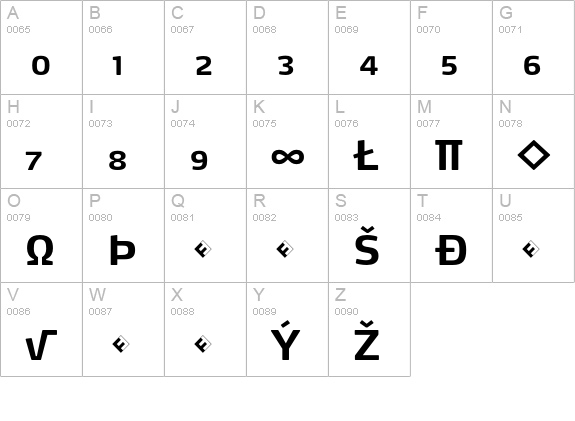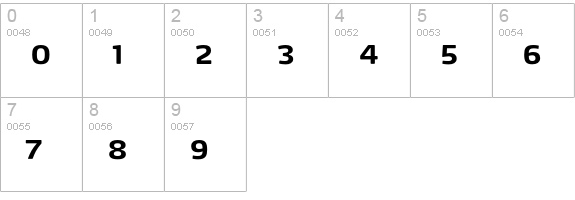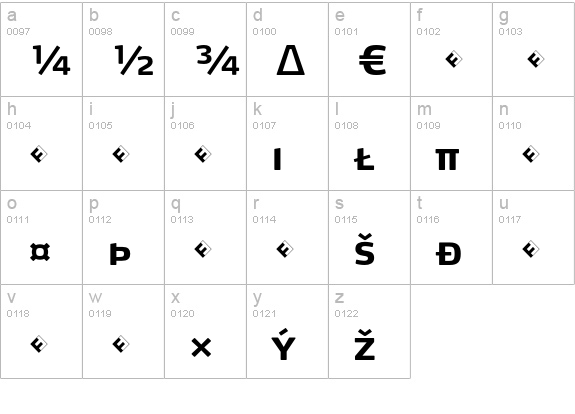
Max-BoldSCExpert font is a bold and sophisticated typeface that exudes strength and confidence. With its sharp edges and clean lines, this font is perfect for making a bold statement in your designs. The expertly crafted design of Max-BoldSCExpert font ensures that your text will stand out and make a lasting impression. What makes this font even more appealing is that it is available for free download at FontsMarket.com. This means that you can easily access and use Max-BoldSCExpert font in your projects without any cost. Whether you are creating posters, logos, or any other design work, Max-BoldSCExpert font will add a touch of professionalism and style to your creations. Don't miss out on the opportunity to enhance your designs with the striking and impactful Max-BoldSCExpert font, available for free at FontsMarket.com. Download it today and elevate your design projects to the next level.